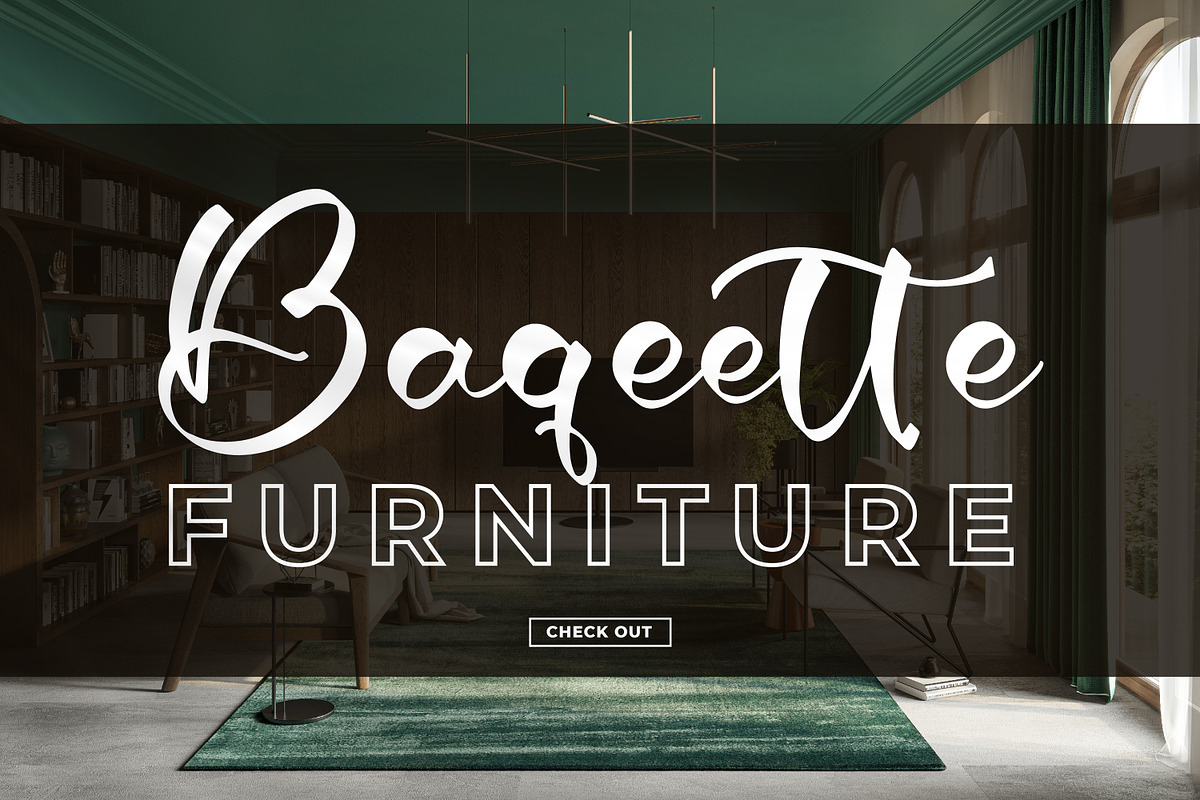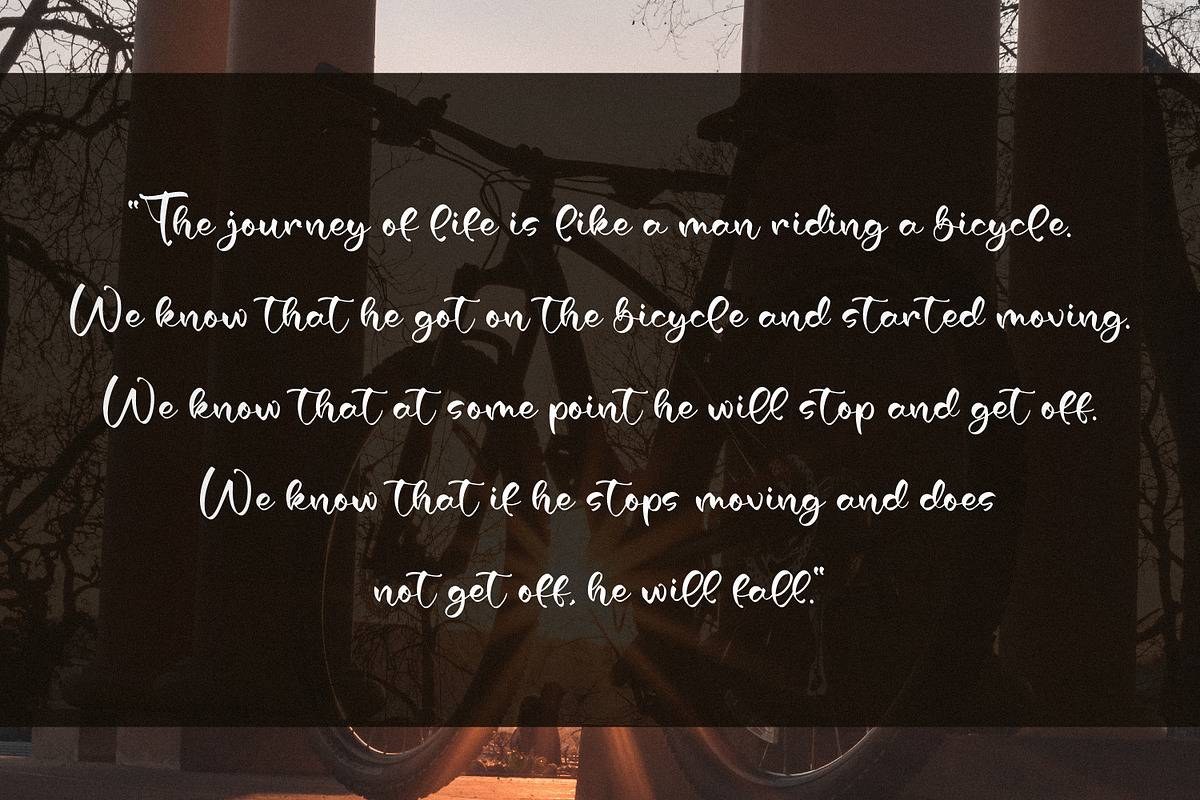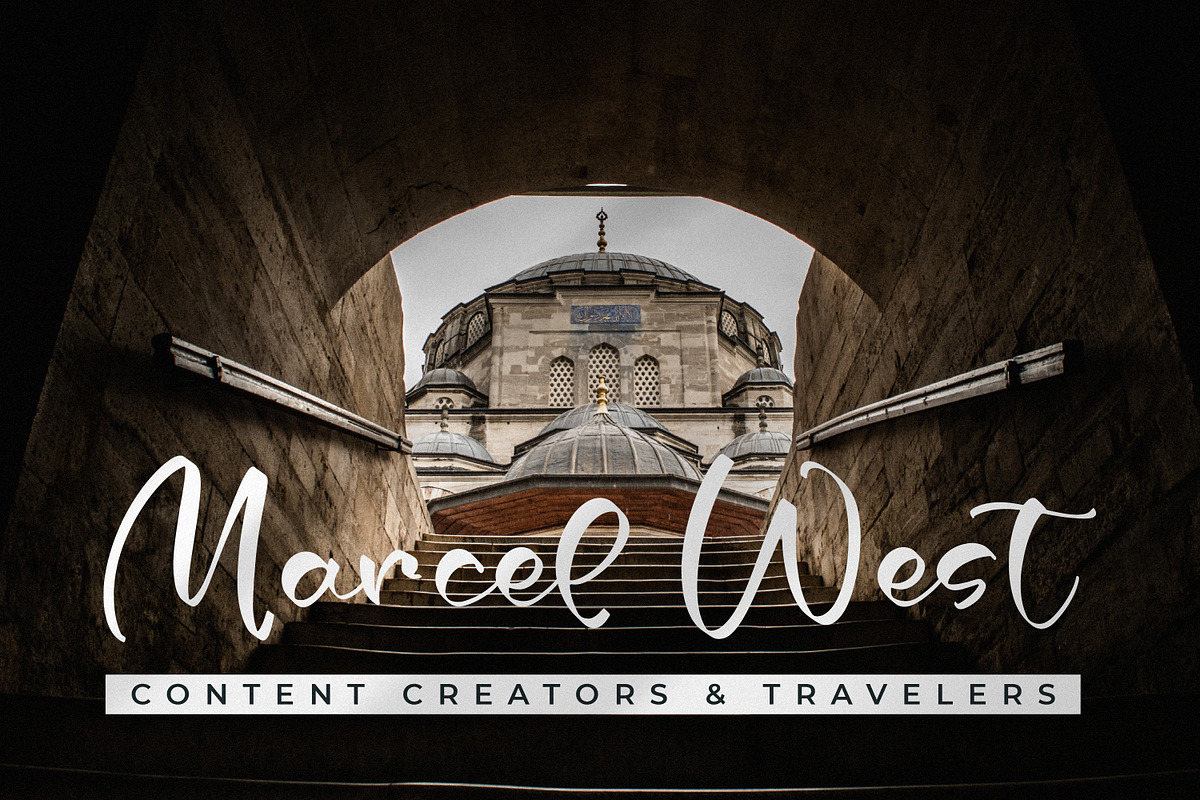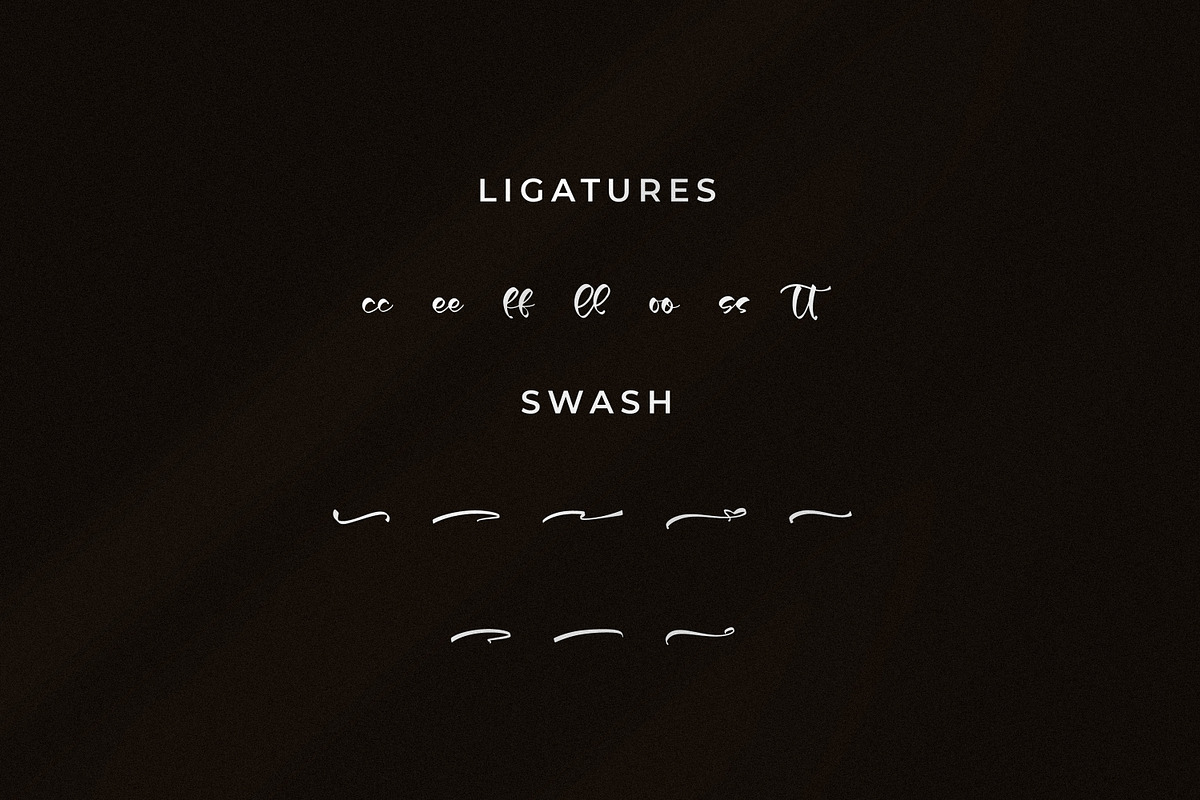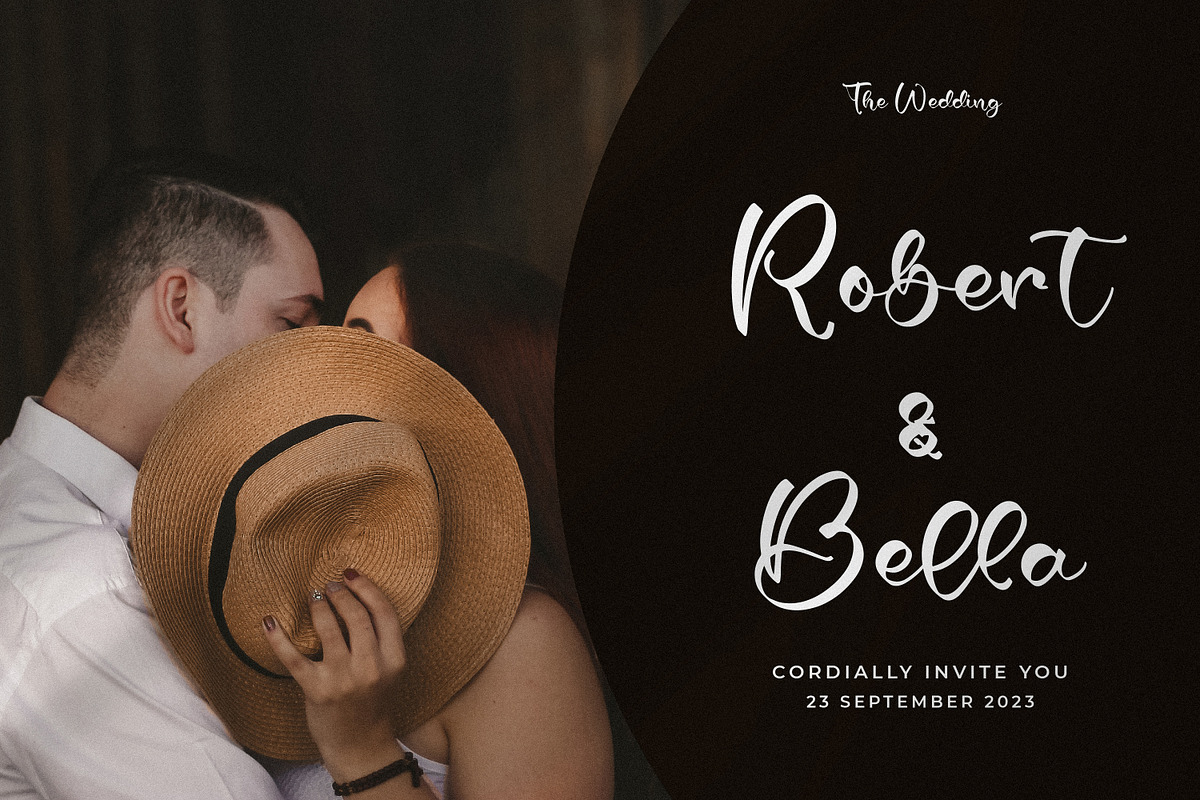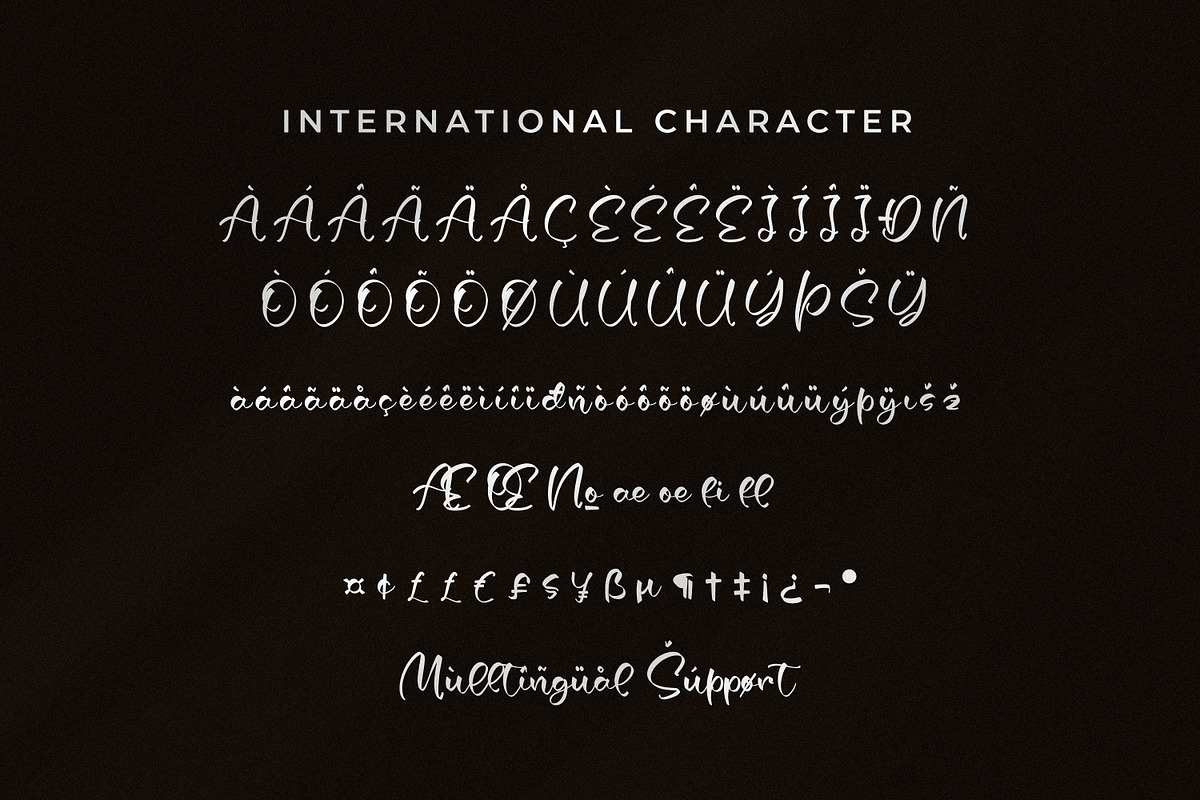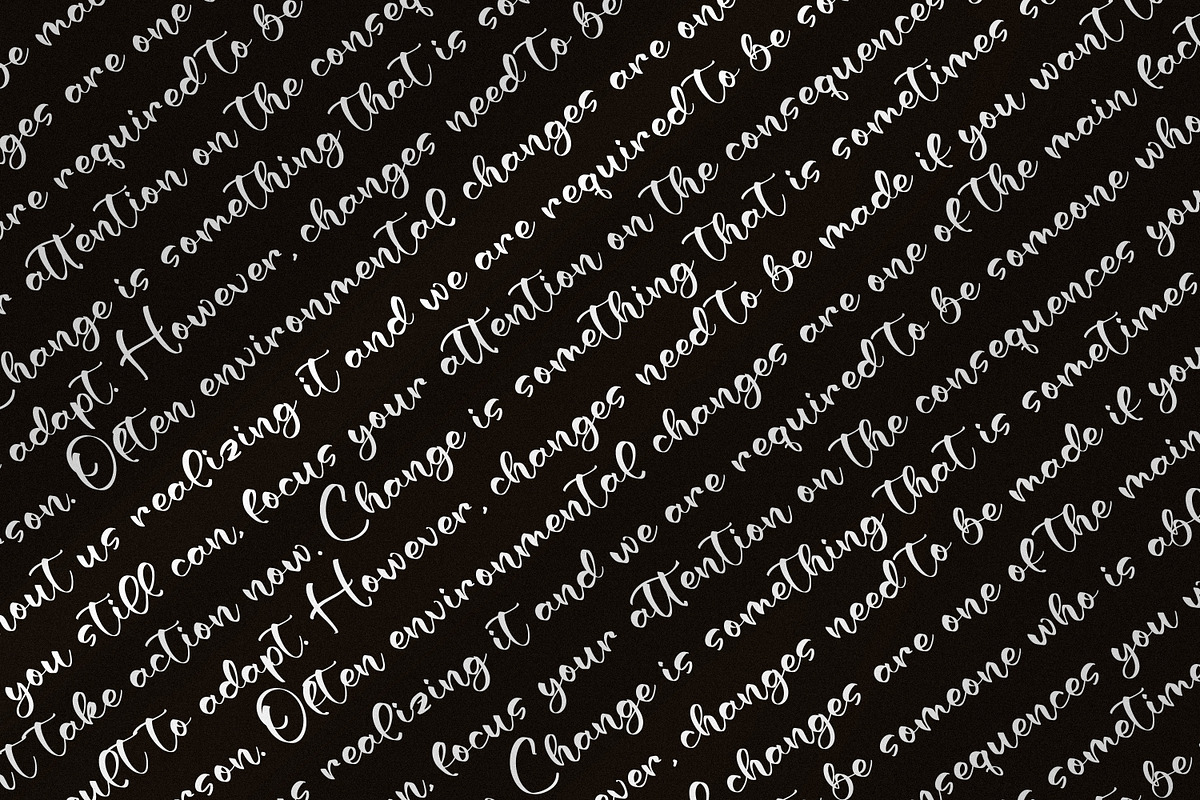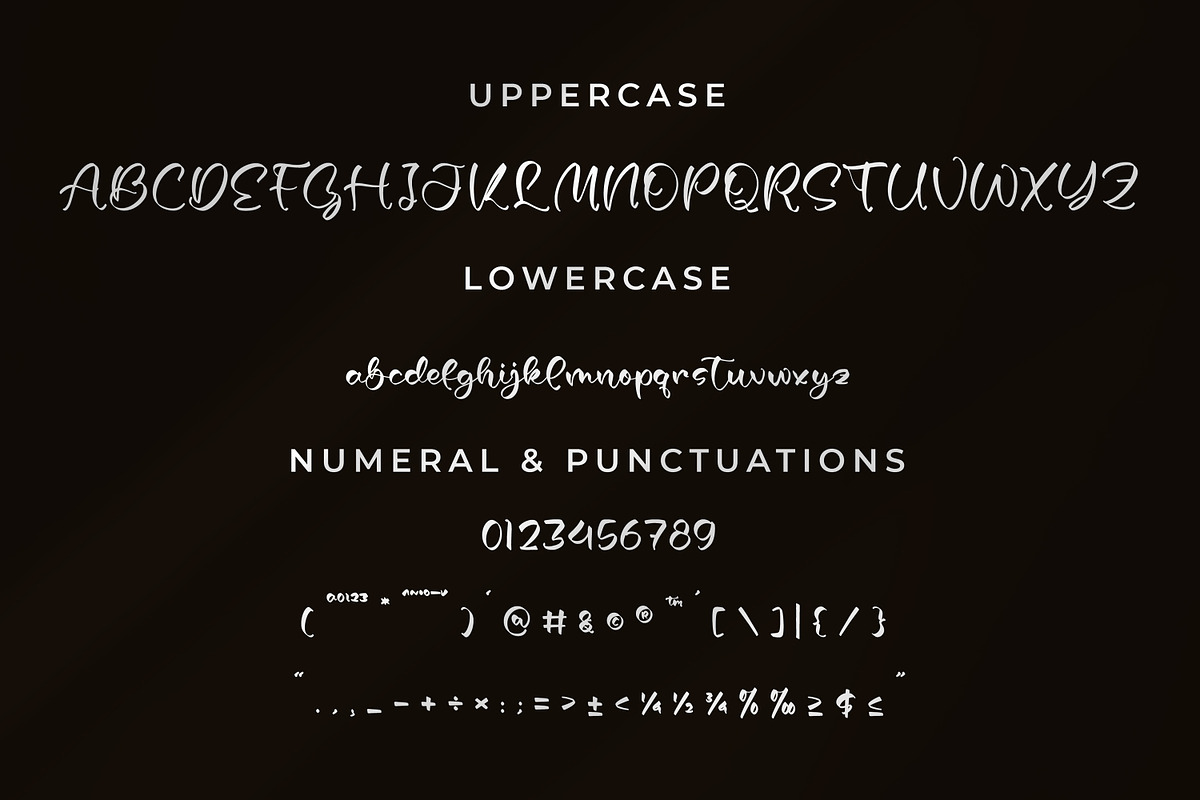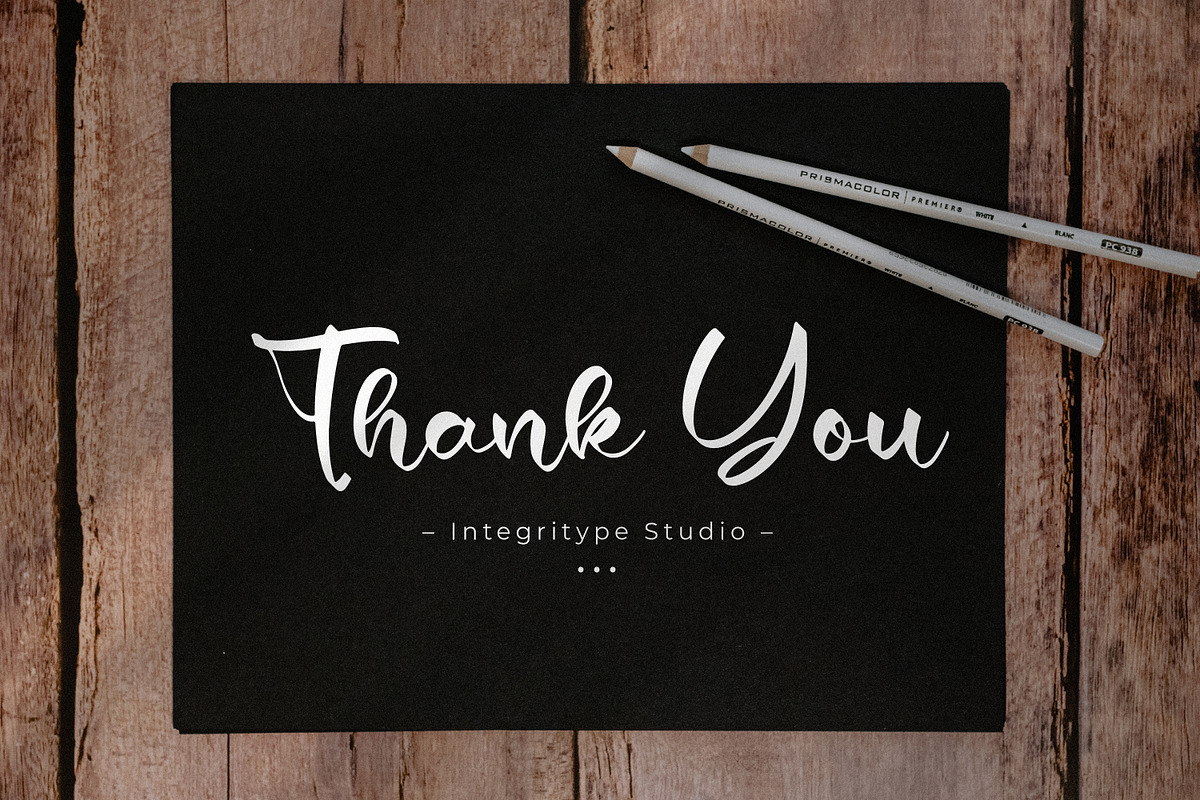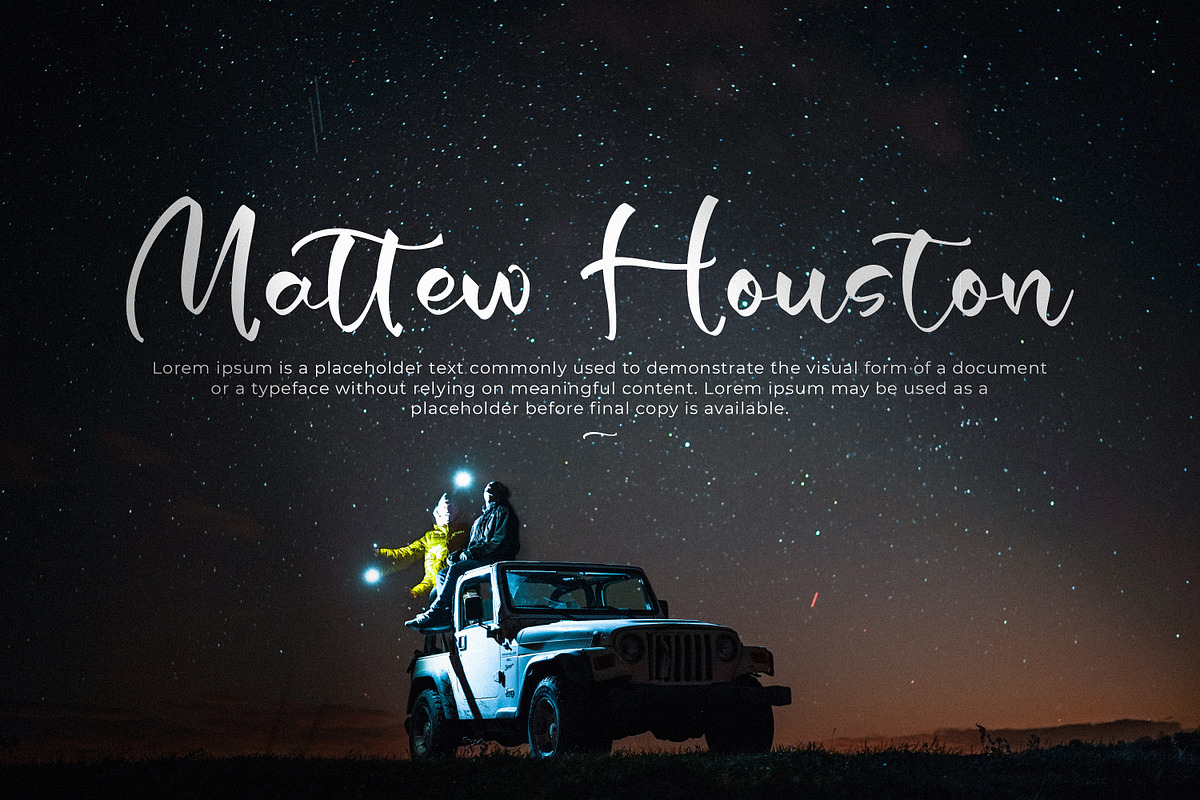
Mosqatte Hosller
Mosqatte Hosller - Modern Script Font, from Integritype Studio, is a premium Modern Script Font, suitable for any projects such as: logos, branding projects, homeware designs, product packaging, mugs, quotes, posters, shopping bags, t-shirts, book covers, name card, invitation cards, greeting cards, label, photography, watermark, special events, and all your other luxury projects that need a premium signature taste.
Ligature, Alternate & Swashes